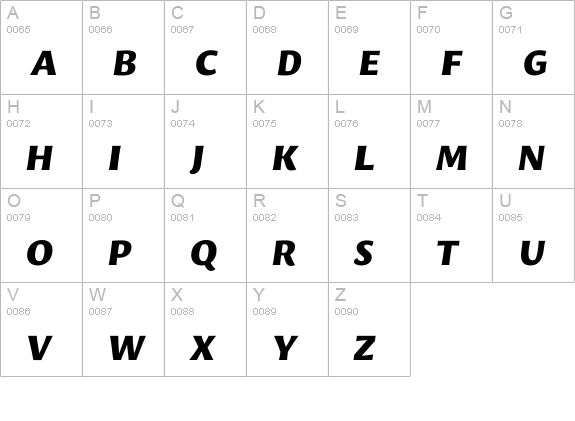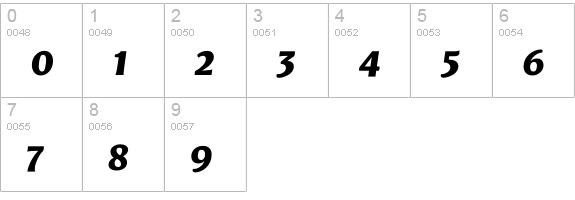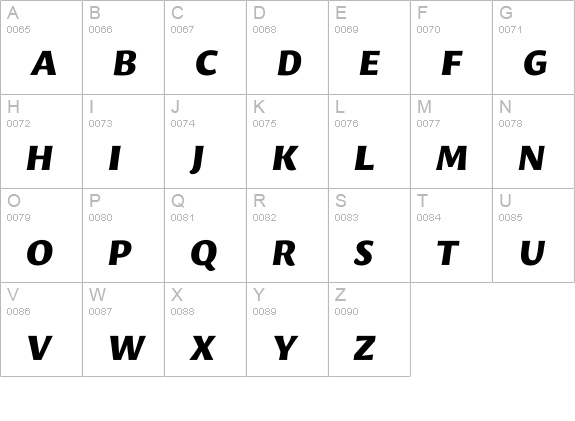
Leksa Sans ExtraBold Italic is an extra-heavy, attention-grabbing, italic variant in the Leksa typeface family \xE2\x80\x94 well suited to high-impact headlines, posters, and bold branding.
Leksa Sans ExtraBold Italic font is a modern and versatile typeface perfect for making a bold statement in your design projects. Its sleek and sharp design exudes confidence and strength, making it ideal for headlines, posters, and branding materials. The italic styling adds a touch of elegance and sophistication to any text. The Leksa Sans ExtraBold Italic font is not only visually striking but also incredibly versatile, making it suitable for a wide range of design applications. Whether you're designing a sleek website, eye-catching advertisements, or striking packaging, this font will help your message stand out. And the best part? Leksa Sans ExtraBold Italic font is available for free download at FontsMarket.com. You can easily access this powerful font and use it in your projects without any cost. Don't miss out on the opportunity to elevate your designs with this stunning typeface. Download Leksa Sans ExtraBold Italic font today and make a bold statement with your typography.